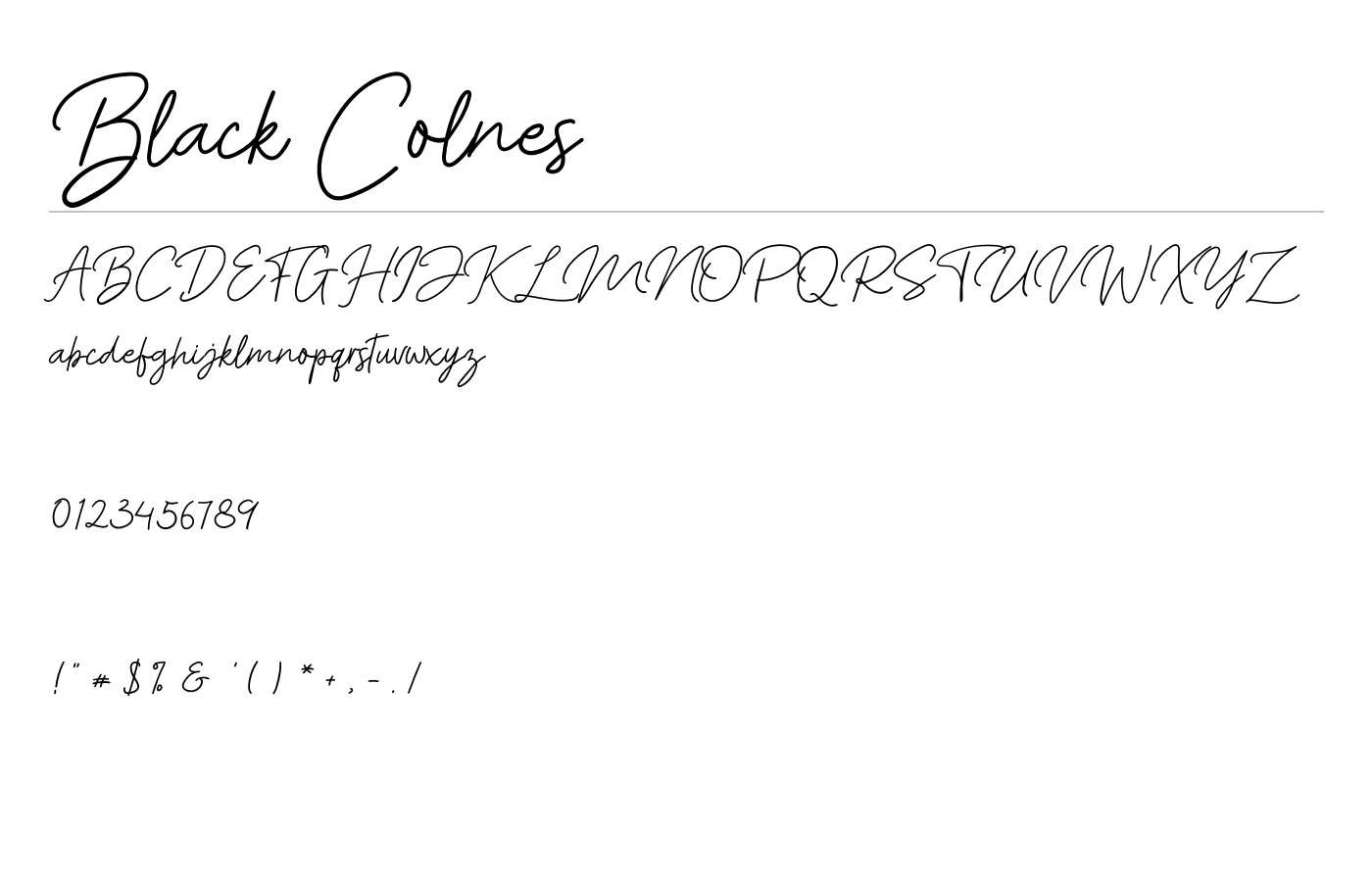
Black Colnes is a delicate and elegant script font with a hand-drawn, cursive style that features light, flowing strokes and a graceful, airy texture. With its thin, slightly irregular lines and high x-height, it evokes a personal, sophisticated feel, making it ideal for invitations, branding, and feminine design projects that seek a stylish, approachable touch. Its refined yet casual appearance works well in creative and editorial contexts, where gentle elegance is desired.
Black Colnes Font
About Black Colnes Font